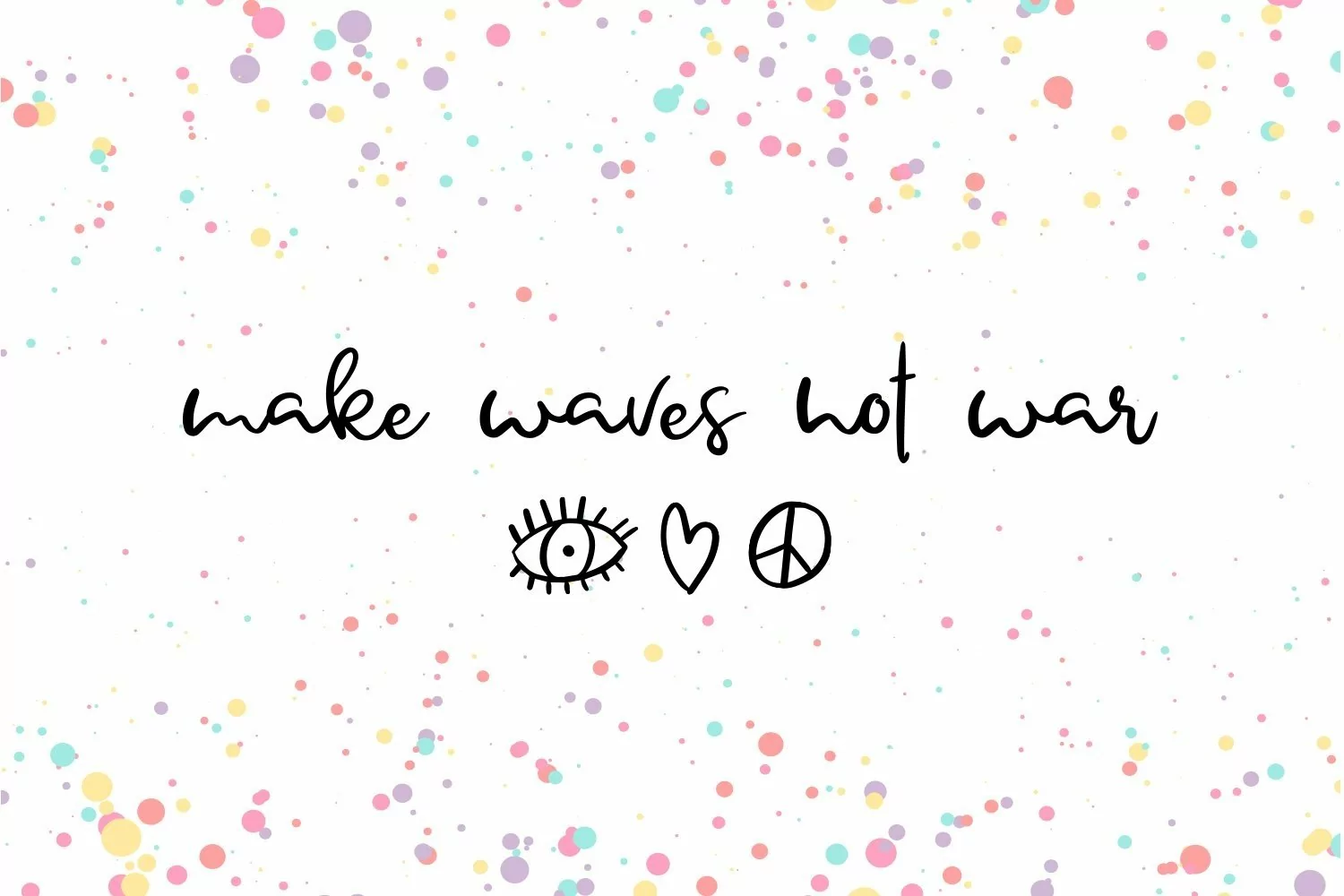
Web Font Yokumtown Script Font & Doodles
Yokumtown Script Font & Doodles is a script font that includes some extra doodles!
YokumtownScriptFont-Regular
Doodles